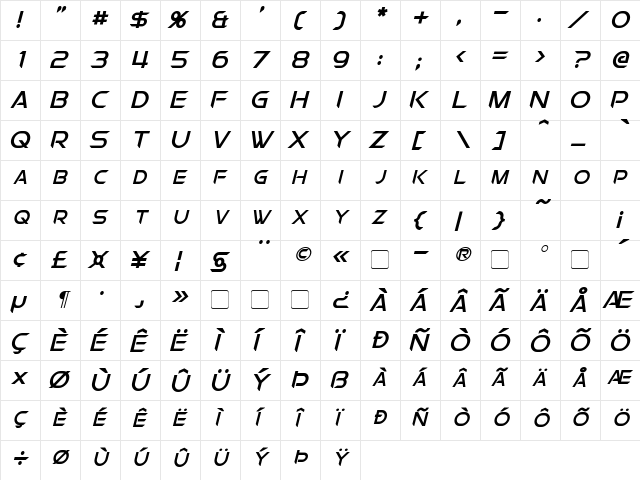
Chromia Supercap Italic
Italic · Pixel Sagas Neale Davidson ·
Design Context for Chromia Supercap Typeface
Chromia Supercap offers clean, dependable letterforms without strong stylistic allegiance, making it a practical choice for designers who need flexibility. The slanted form adds forward momentum and visual energy.
Pro Tip: Try Chromia Supercap for annotation and caption copy alongside an upright companion — the contrast in angle creates a dynamic but ordered typographic system.